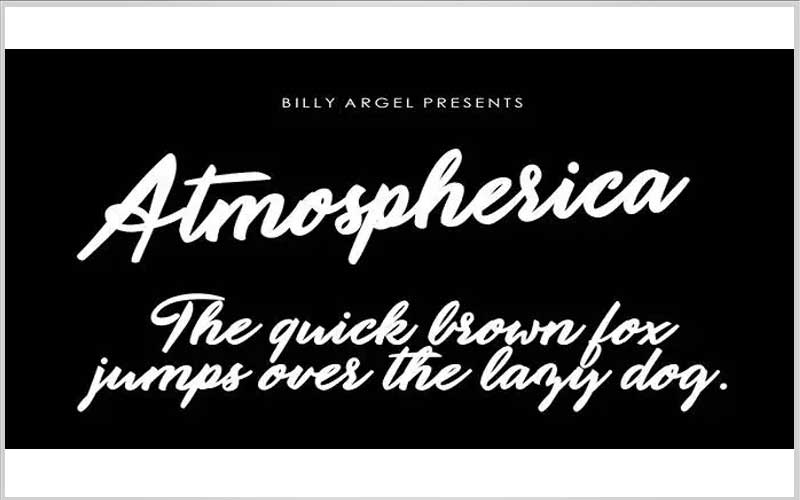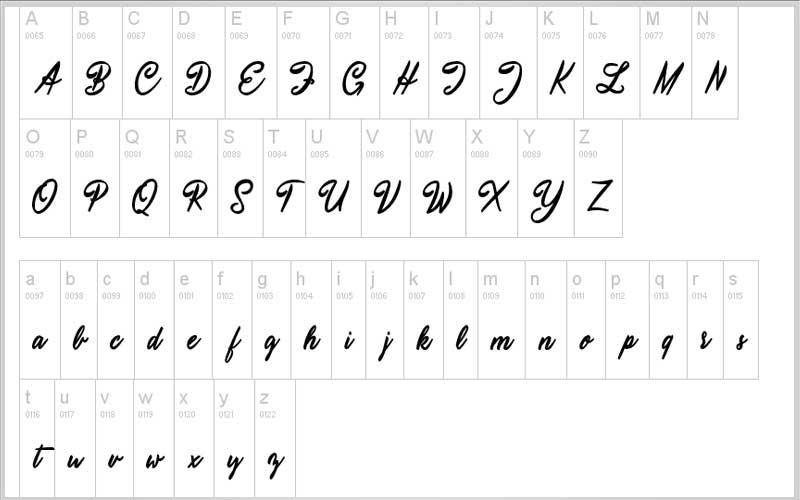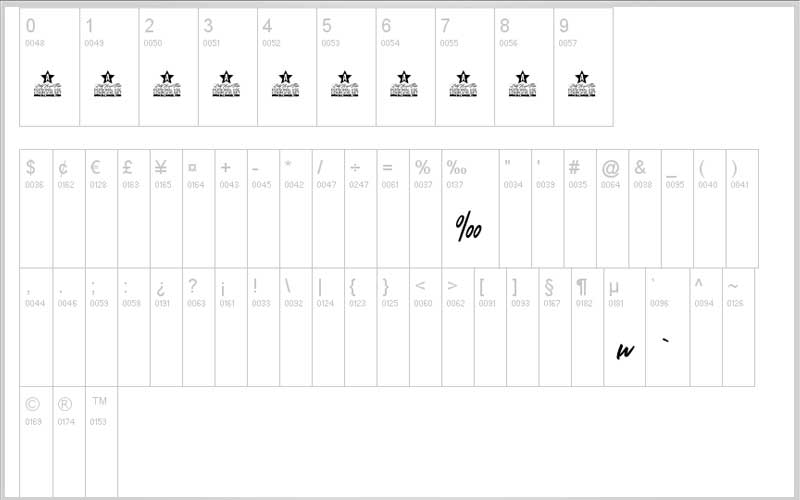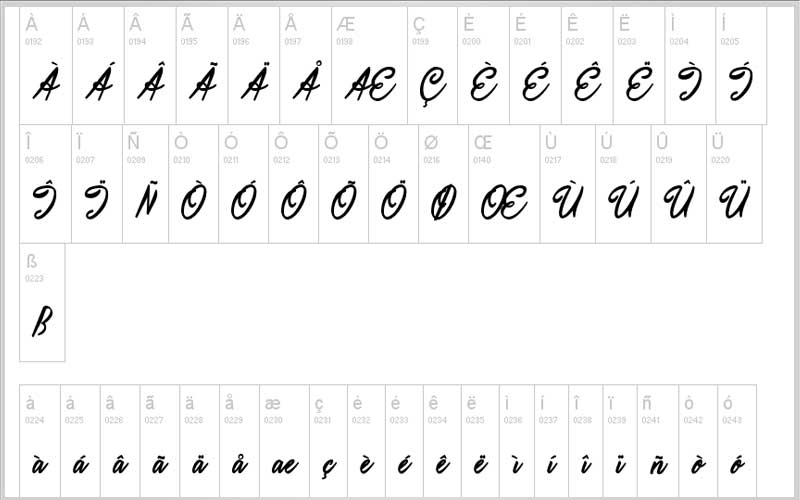
Atmospherica Font is suitable for Calligraphy to get your text designs? look better. The Atmospherica Font for free download for personal or paid if commercial use.
Atmospherica is a high quality Calligraphy font that is designed by Billy Argel and is available for free download and personal use. The free version provides all uppercase and lowercase letters and a few special characters too.